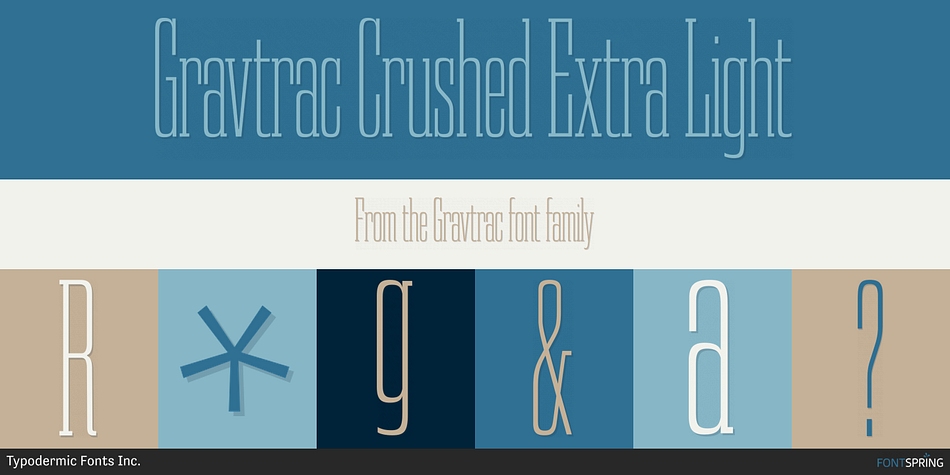
Gravtrac Crushed Extra Light
Designed by Ray Larabie, Gravtrac is a slab serif font family. This typeface has fifty-six styles and was published by Typodermic Fonts Inc.
Introducing Gravtrac—a typeface that exudes a sense of timeless elegance and sophistication, while boasting a compact design that is perfect for those who seek to maximize space. With inspiration drawn from mid-twentieth century classics such as Univers 59 Ultra-Condensed, Helvetica Inserat, and Compacta, Gravtrac is designed to deliver powerful punches with minimal space usage.
Gravtrac’s design is all about precision and tight curves, with flat sides that create a steady rhythm. The Condensed style is the widest of the range, yet it is still compact enough to be a comfortable read. With 7 weights available, from Ultra-Light to Heavy, there is a style to suit every need.
For those seeking an even narrower width, Gravtrac Compressed offers a sleek, minimalist design that is perfect for those who demand the most from their typography. And for those who truly want to make a statement, there is Gravtrac Crammed—a typeface that is audaciously narrow and perfect for grabbing the reader’s attention.
But that’s not all—Gravtrac also offers Crushed, a devilishly slender typeface that is perfect for creating a stark, opulent look. When paired with wide tracking, it creates a striking effect that is impossible to ignore.
Gravtrac’s range is available in obliques that vary from 7 to 10 degrees, giving designers even more options to choose from. And with a total of 58 styles available, including Opentype fractions, numeric ordinals, a breadth of currency symbols, and old-style numerals, Gravtrac truly is a versatile and comprehensive typeface that every designer should have in their stockpile.
In short, while many designers already have slab serif typefaces in their collections, Gravtrac offers something truly unique—the ability to maximize space without compromising on style or substance. Whether you need a typeface that is compact, sleek, or simply attention-grabbing, Gravtrac has you covered. So why settle for less when you can have the best? Choose Gravtrac today and take your design game to the next level.
Designer Ray Larabie